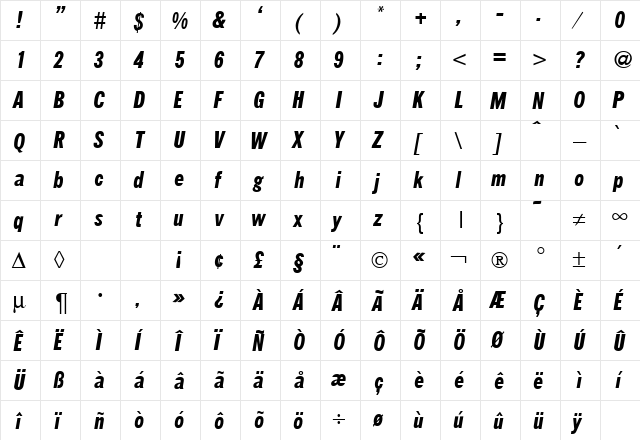
FranklinHeadlineNarrow BoldItalic Font Preview
Design Context for FranklinHeadlineNarrow Typeface
FranklinHeadlineNarrow is a composed and adaptable typeface that performs quietly and consistently across a wide range of design contexts. The slanted form adds forward momentum and visual energy. Its bold stroke weight gives it real presence on the page. Its narrow stance lets it pack a punch even in space-constrained designs.
Pro Tip: Use FranklinHeadlineNarrow for emphasis, pull quotes, and subheadings where its slanted energy can add rhythm to the layout.